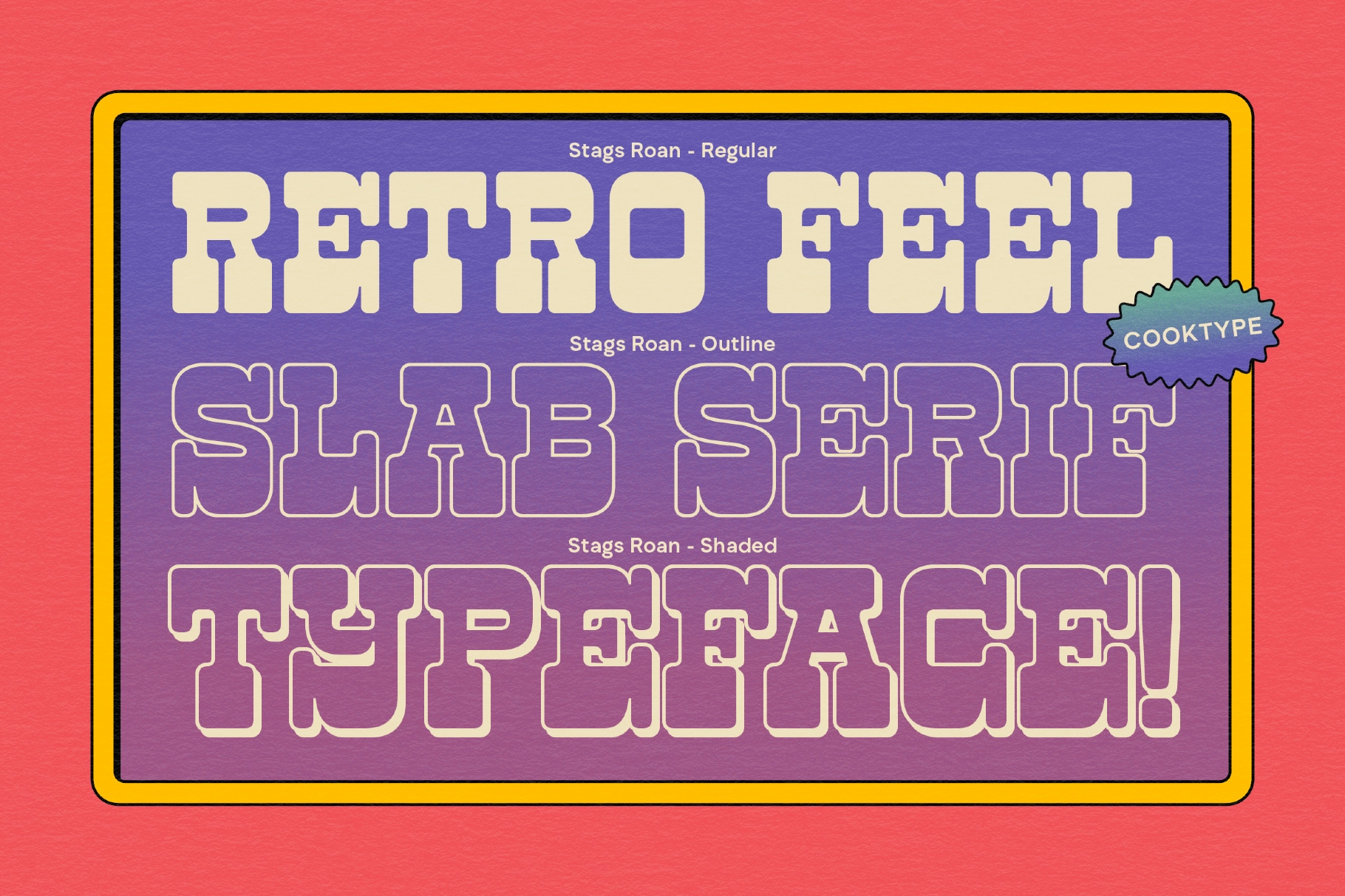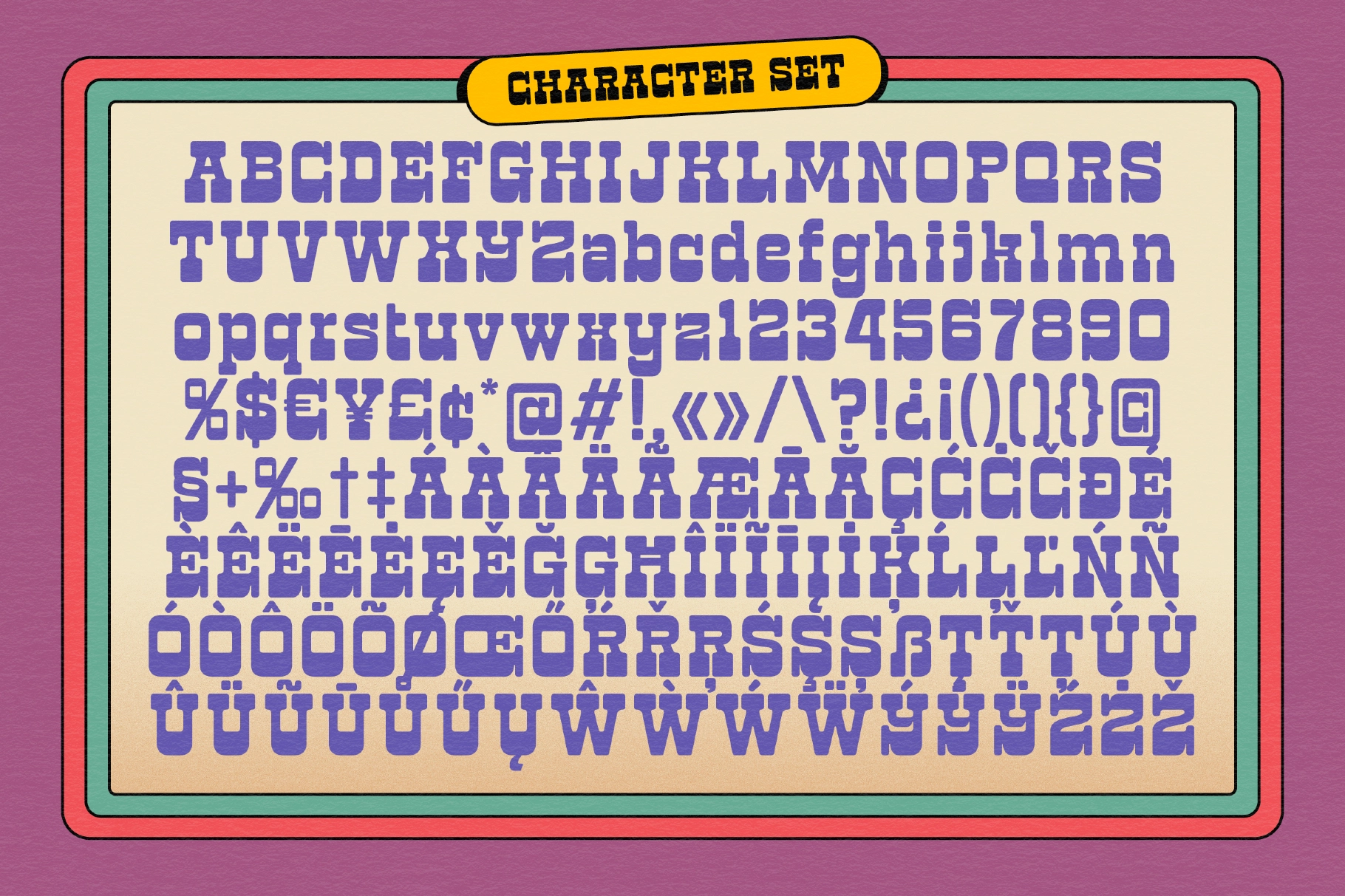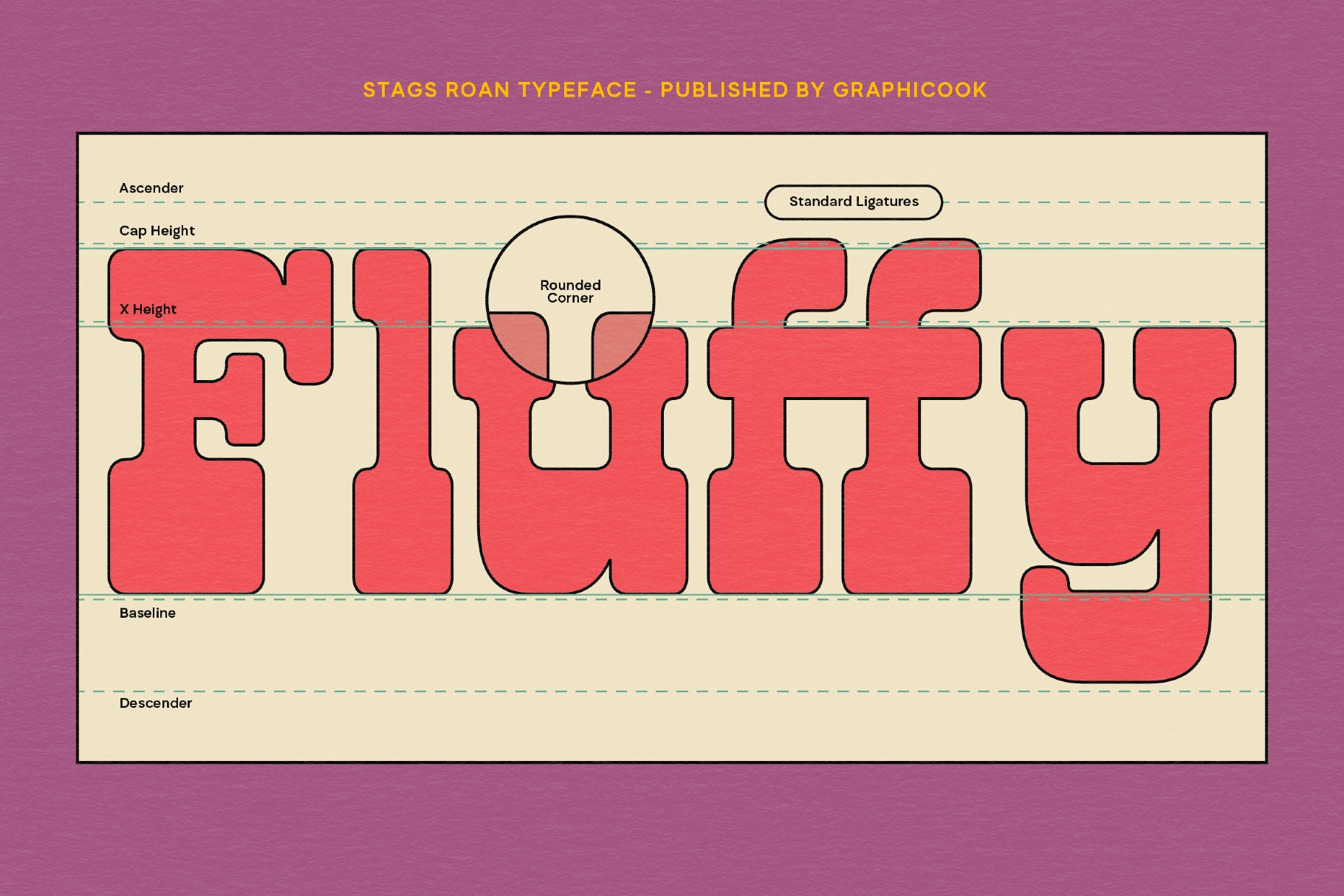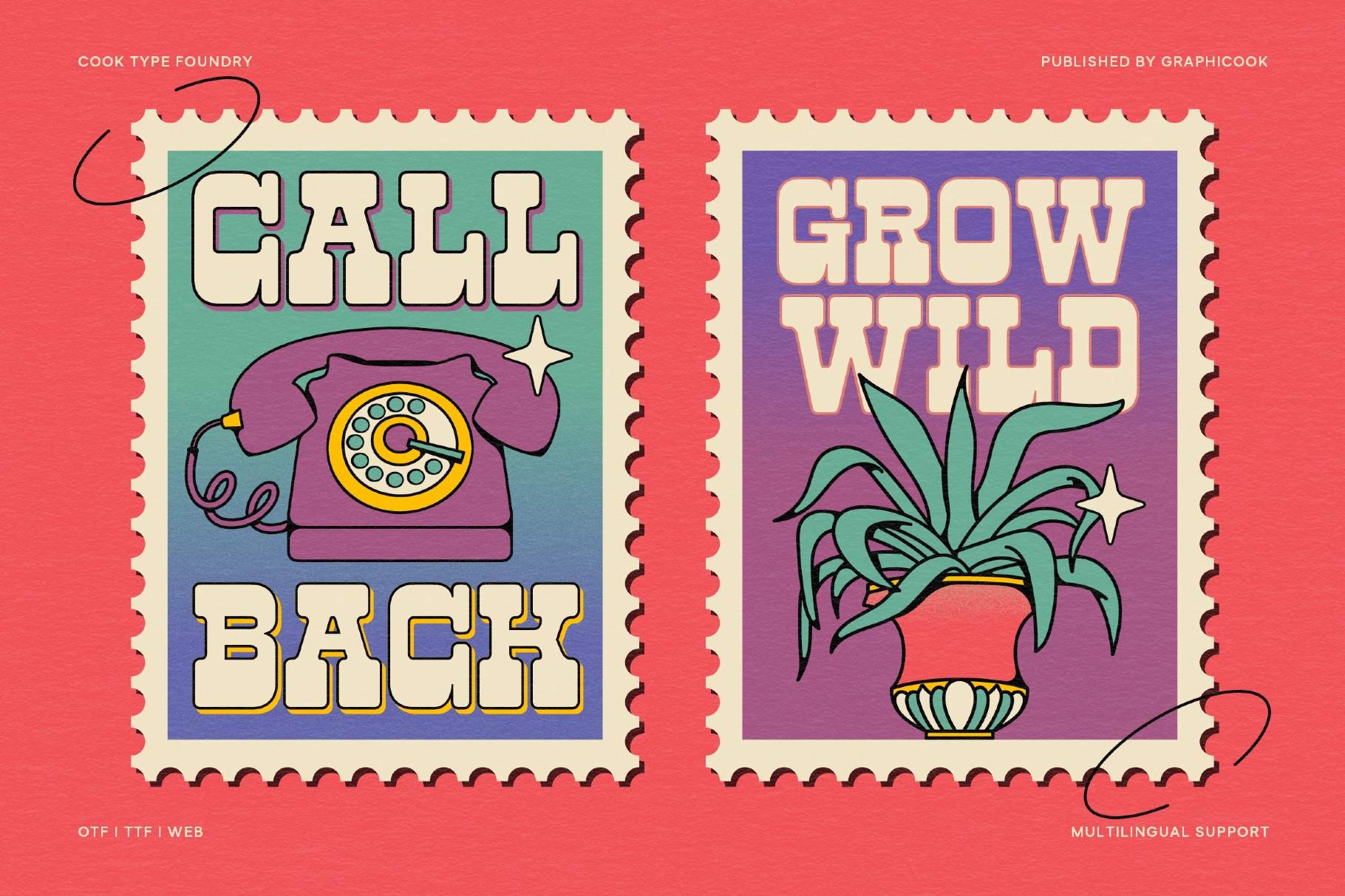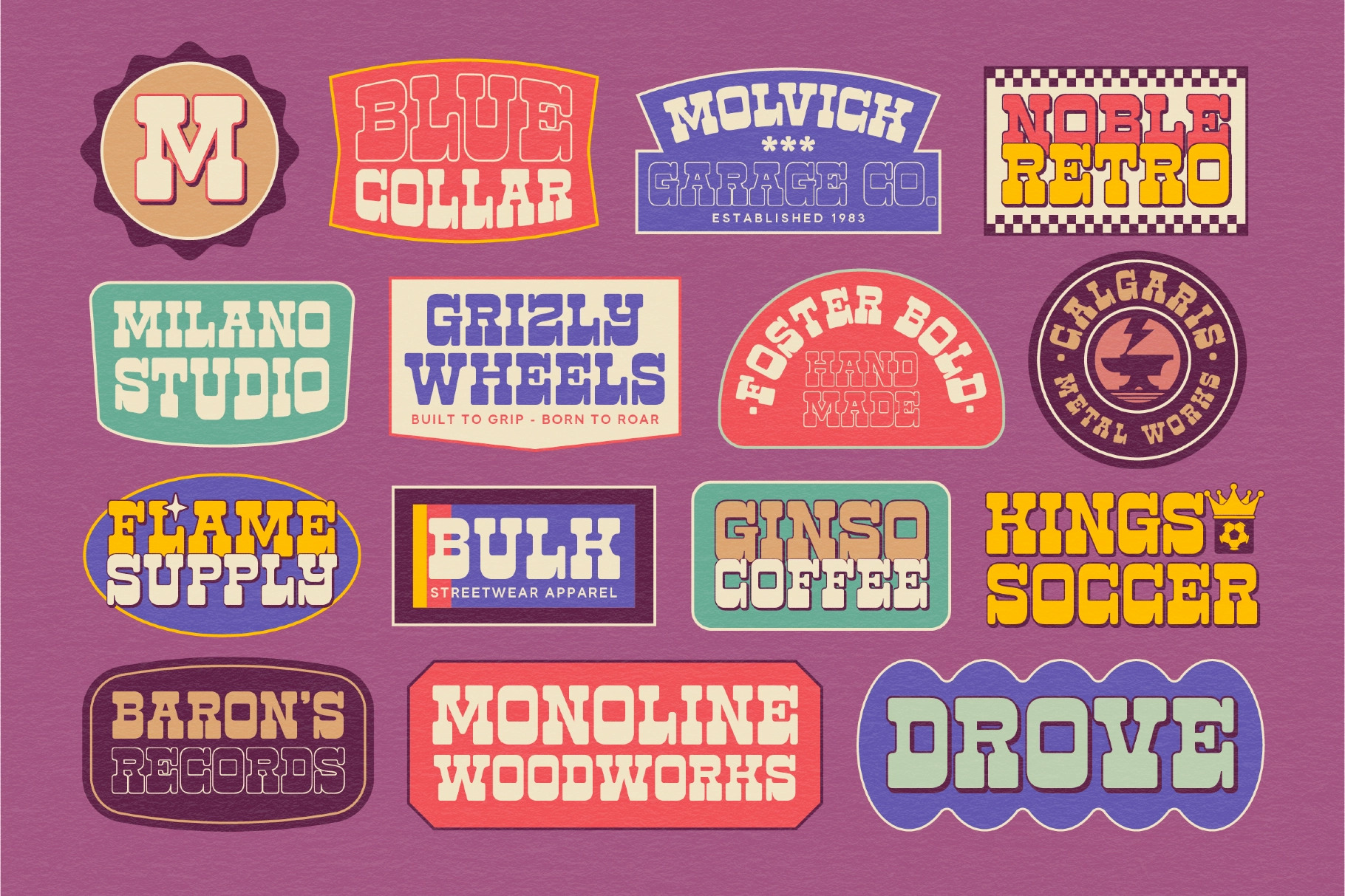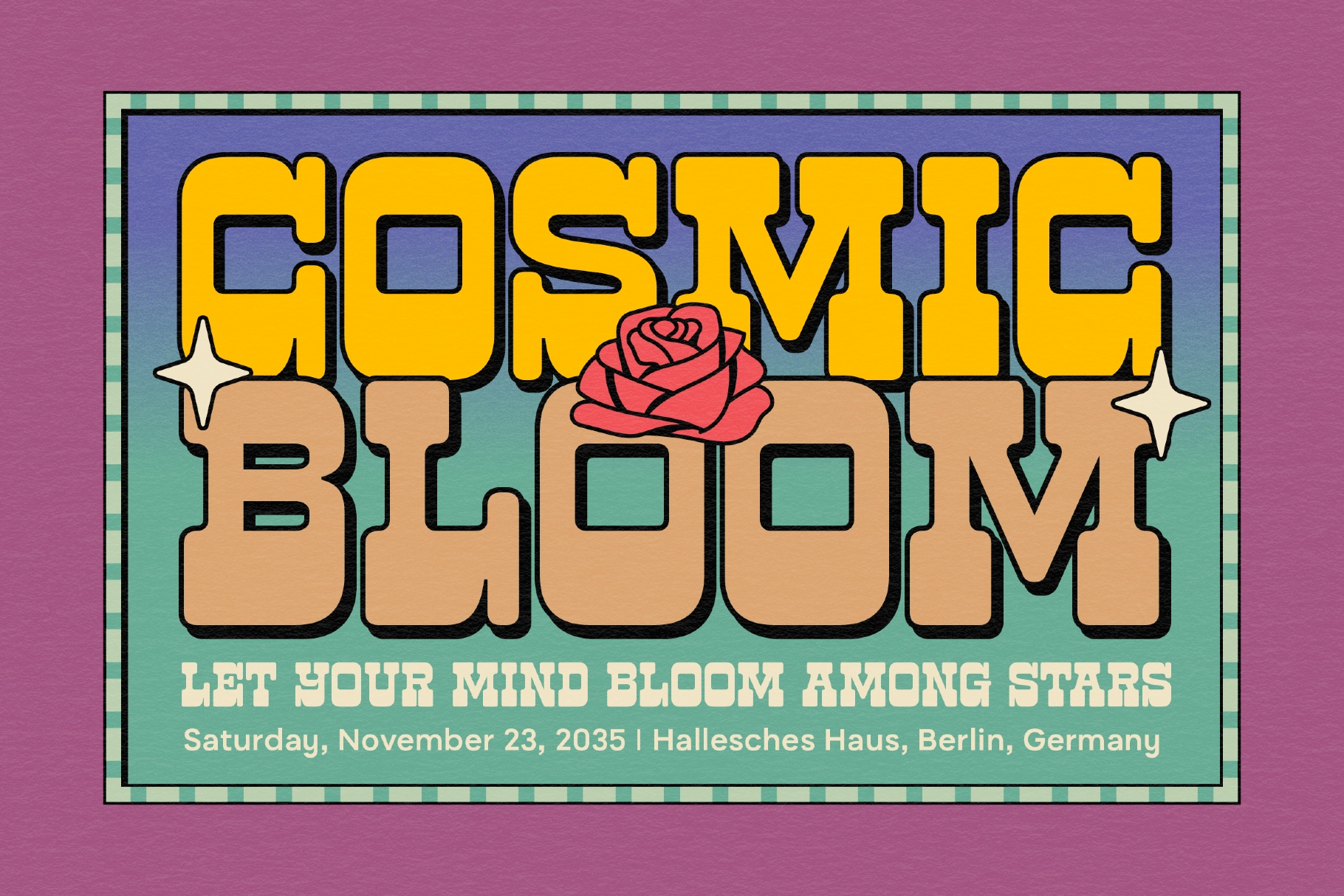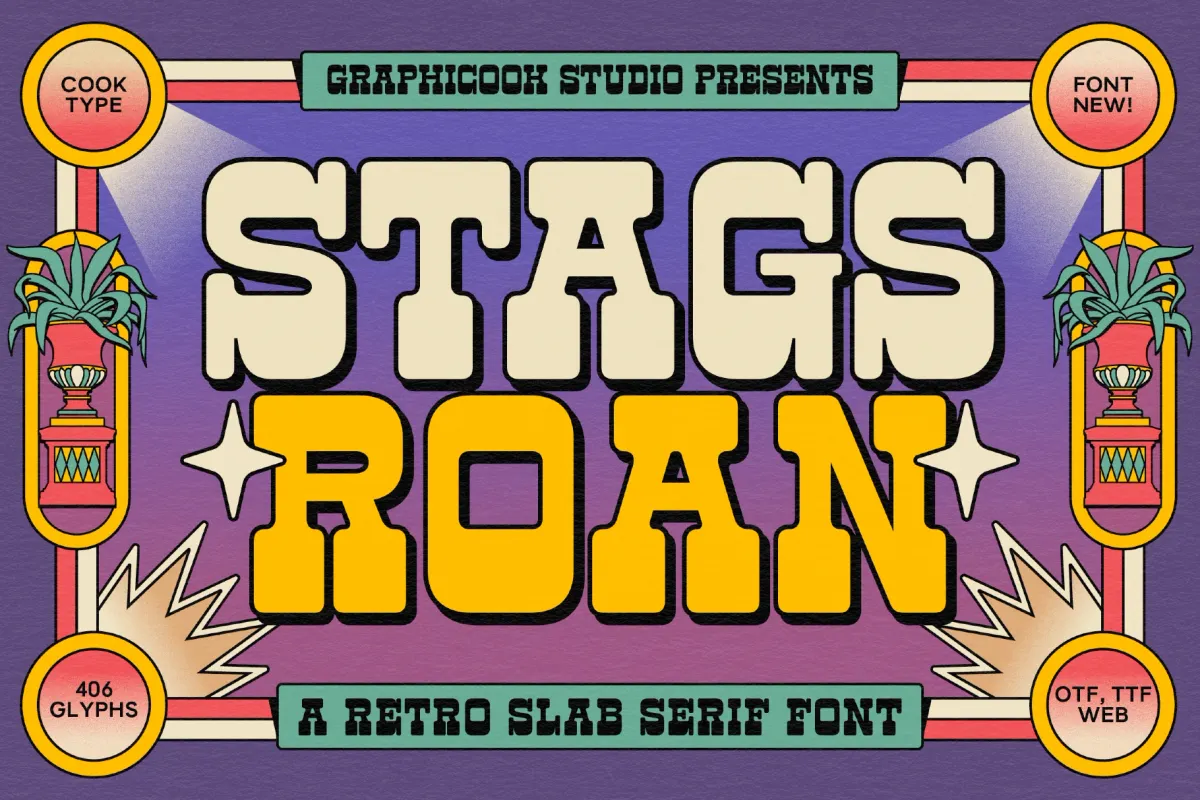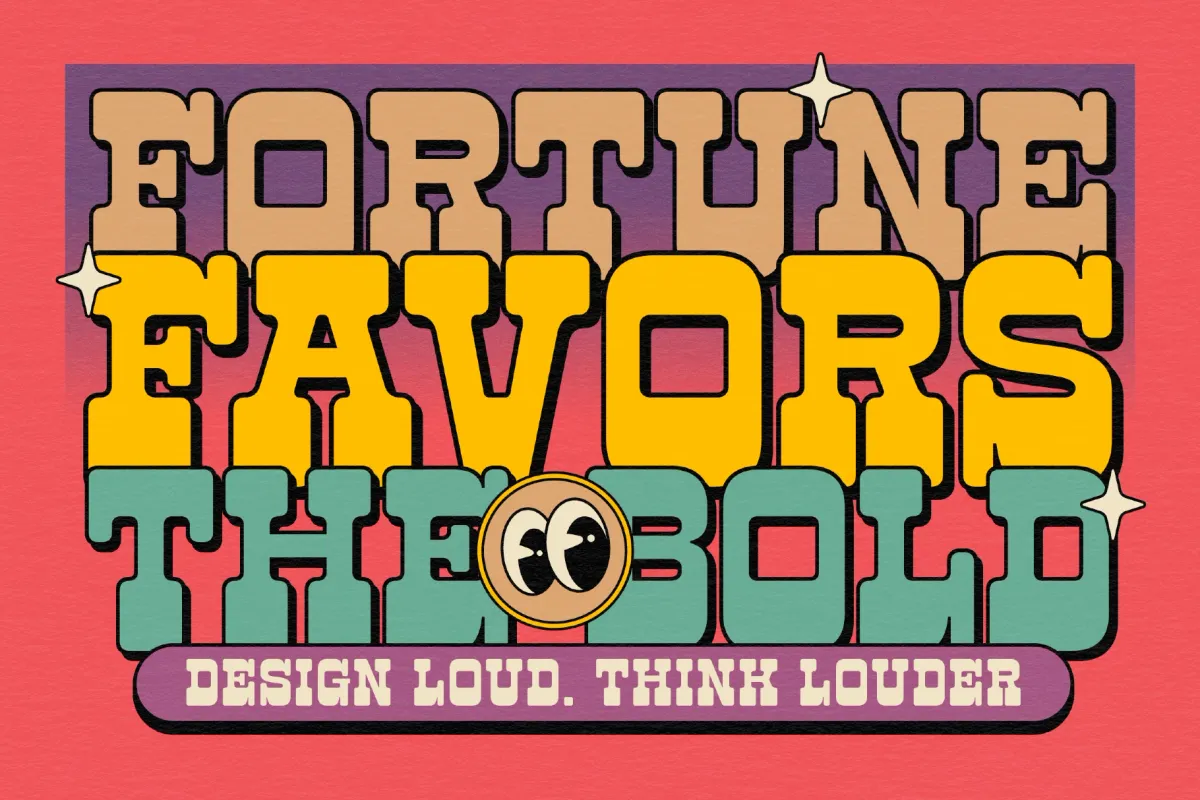
Stags Roan - Vintage Slab Serif Font
Shaded
Stags Roan - Vintage Slab Serif Font is a bold, retro-inspired slab serif that brings classic signage and old-school poster vibes to modern design. It comes in three styles—Regular, Outline, and Shaded—so you can easily create layered, standout typographic treatments. Use it for headlines, packaging, logos, and event posters when you want a strong vintage feel with confident readability.